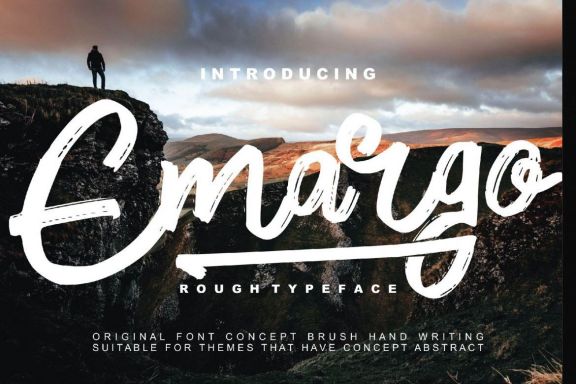
Emargo - Rough Typeface
Emargo - Rough Typeface with a calligraphy style, So beautiful on invitation like greeting cards, branding materials, business cards, quotes, posters, and more!
The alternative characters were divided into several features such as Stylistic Sets, Stylistic Alternates, Contextual Alternate, SWASH and Ligature.
• alternates and ligatures